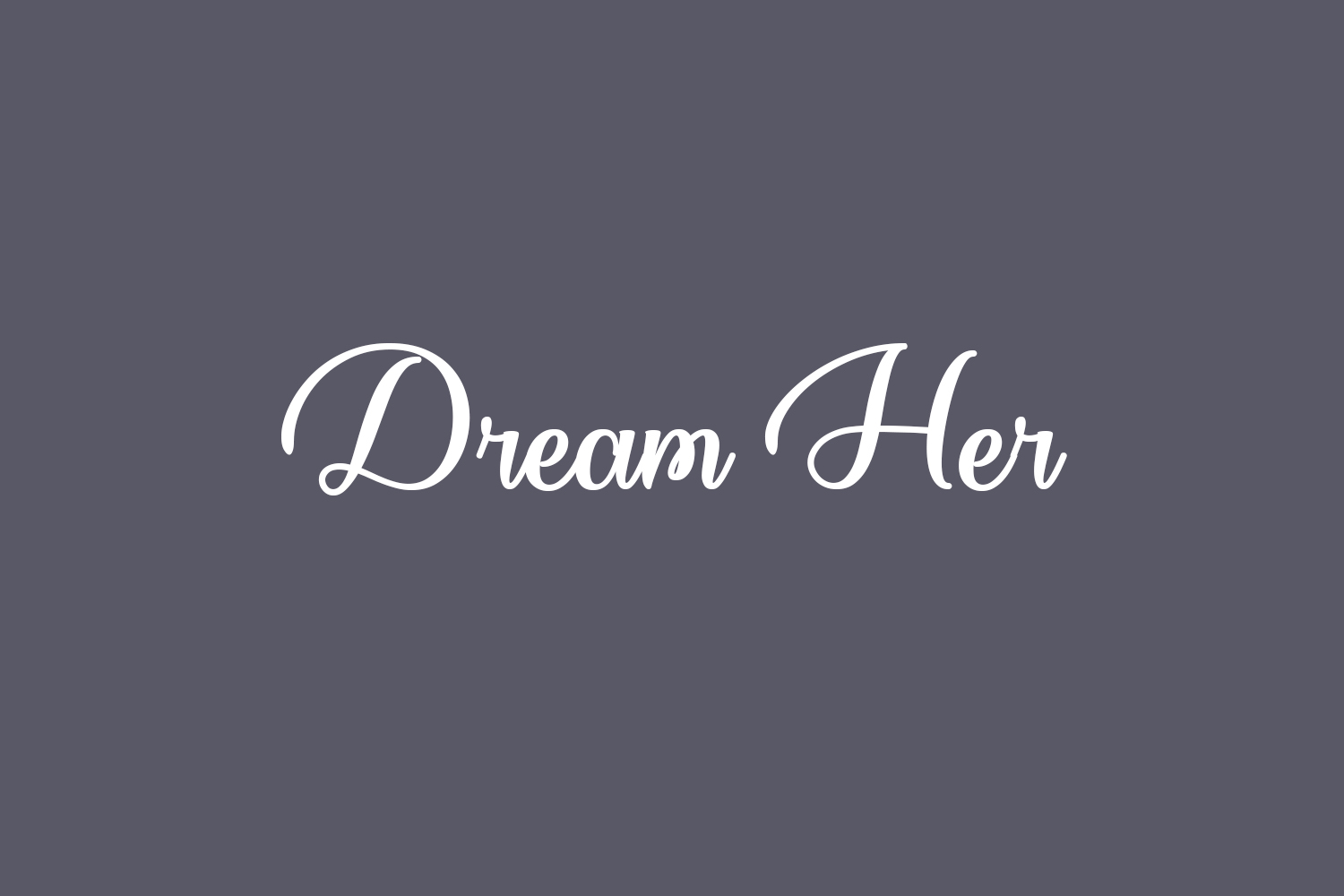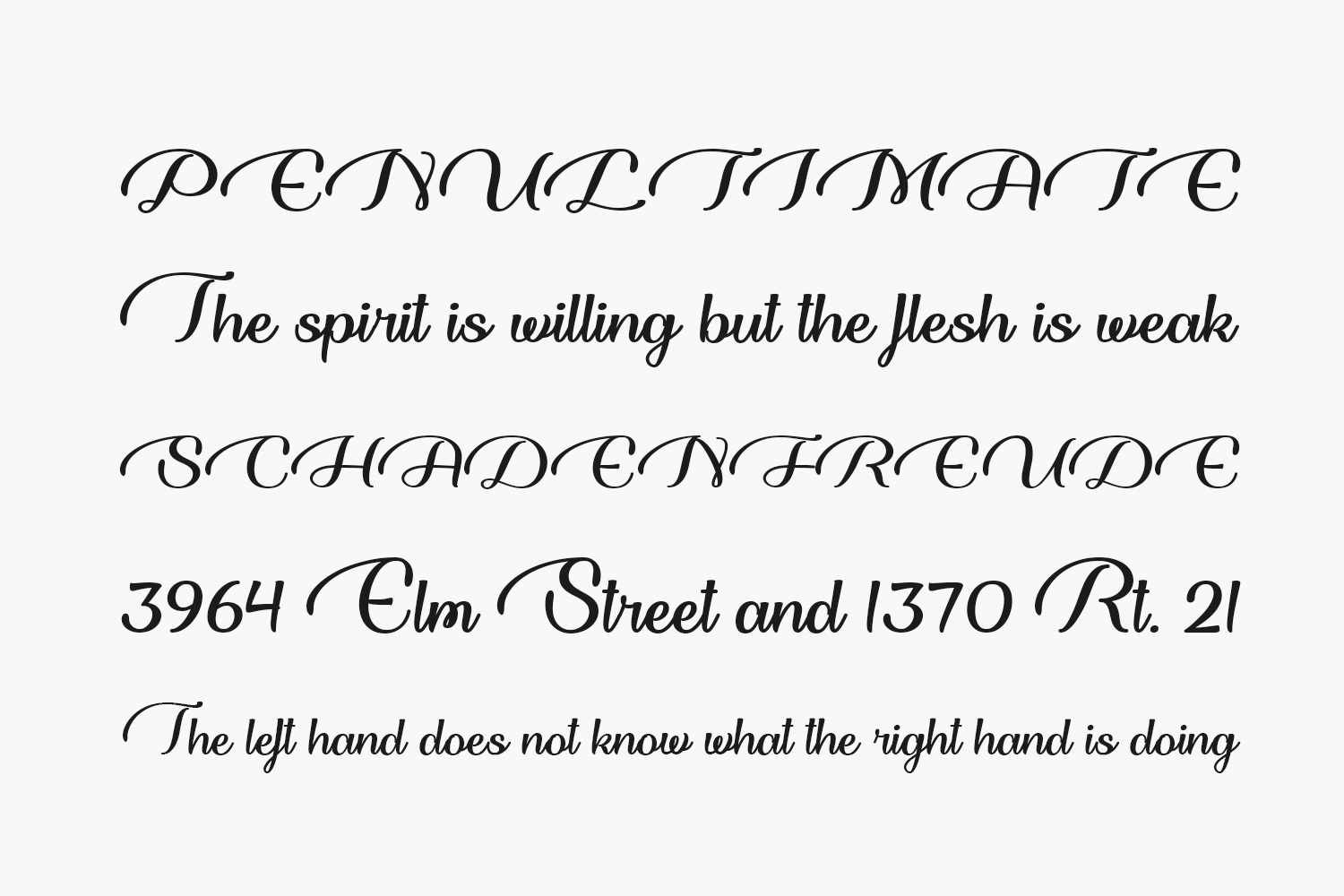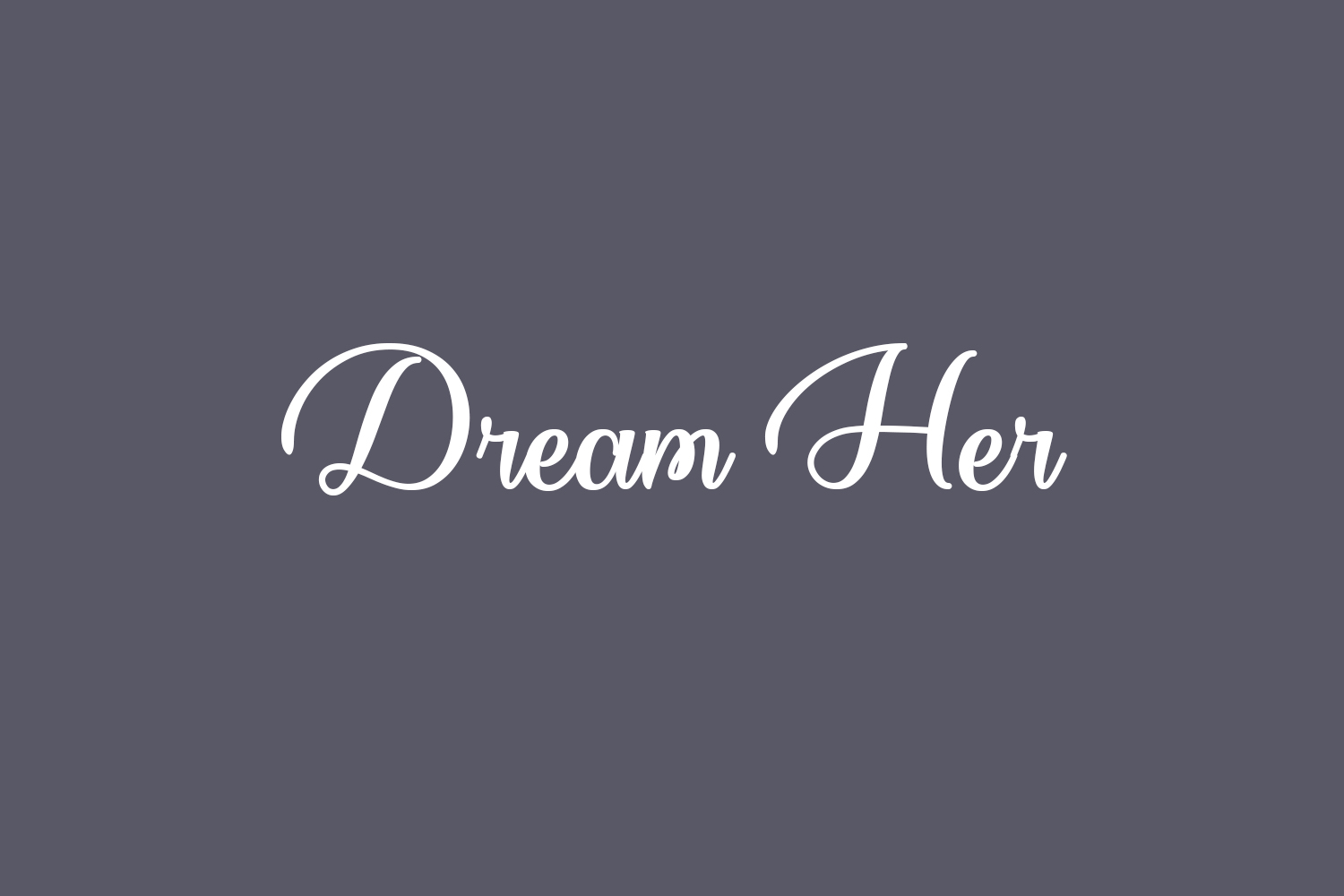
Dream Her Free Font is an elegant, calligraphy typeface that is perfect for wedding invites, logos, menus, book covers, and so much more. Dream Her Free Font was designed by Misti’s Fonts and is free for personal use only. Please purchase the full version for commercial use.